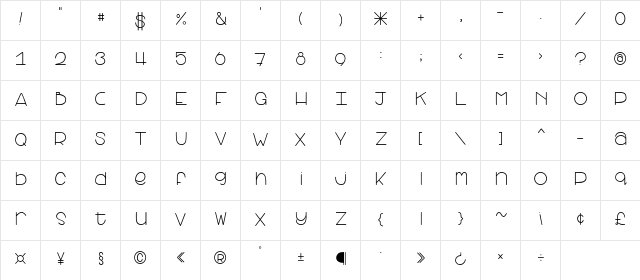
Candy Apple Regular
| Foundry | Jennifer Creations |
| Designer | Jennifer Chow |
Design Context for Candy Apple Typeface
Candy Apple is a composed and adaptable typeface that performs quietly and consistently across a wide range of design contexts.